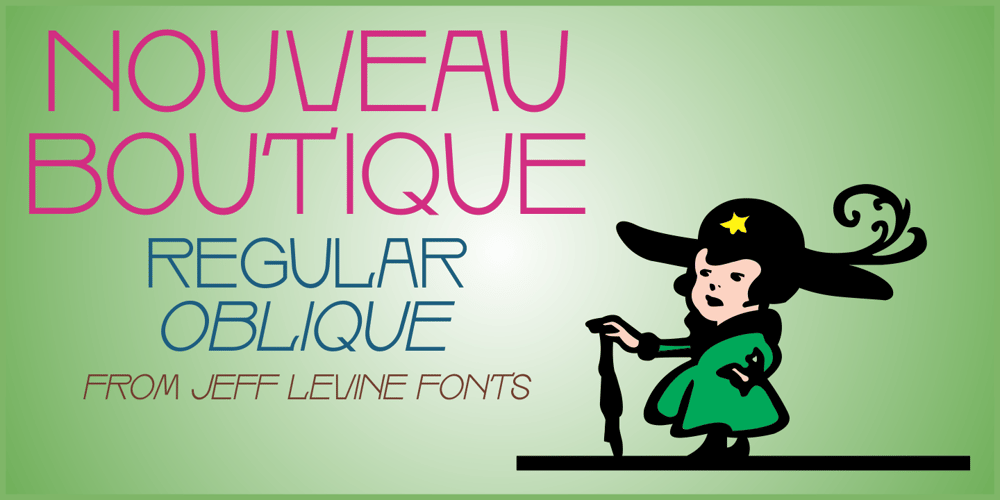
Nouveau Boutique JNL
Nouveau Boutique JNL font
Nouveau Boutique JNL Font Family was designed by Jeff Levine and published by Jeff Levine. Nouveau Boutique JNL contains 2 styles and family package options. A light and playful sans serif type design with Art Nouveau influences was called “Tasso” within the pages of the 1893 edition of the Barnhart Bros. & Spindler type specimen book.This is now available as Nouveau Boutique JNL in both regular and oblique versions.